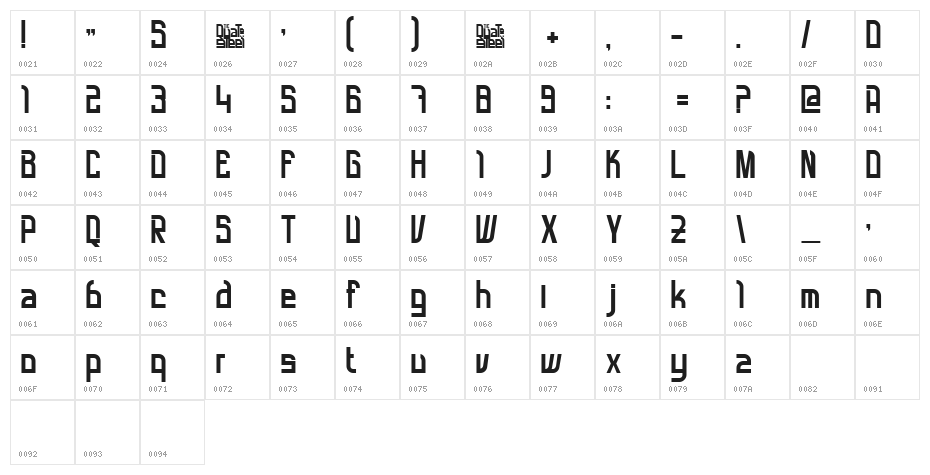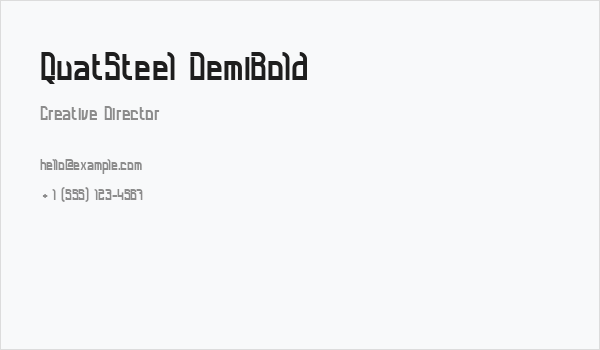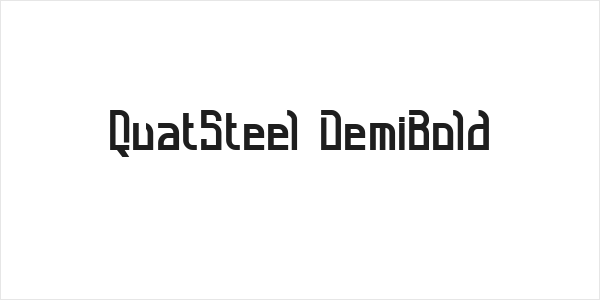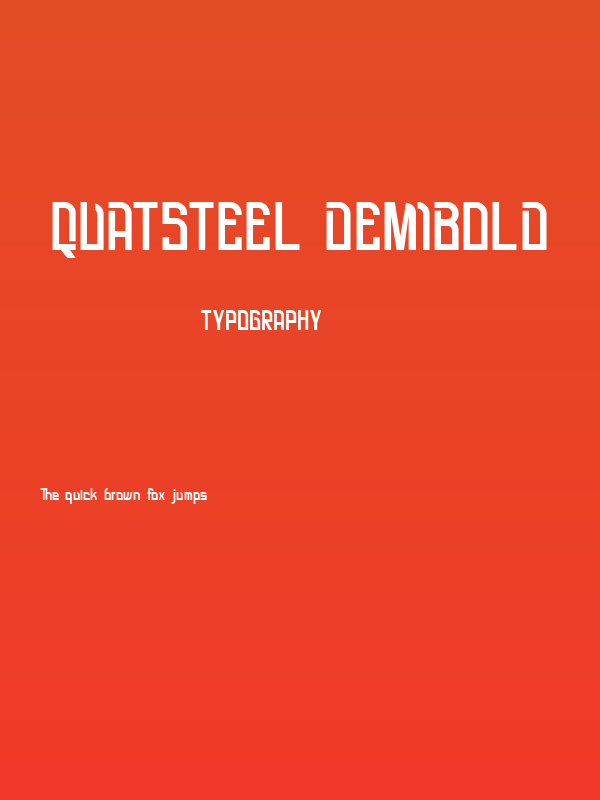
QuatSteel DemiBold Font
QuatSteel DemiBold Description
This font exhibits a bold, geometric style with a modern and industrial feel. The characters are constructed with sharp, angular lines and a consistent stroke width, giving it a robust and sturdy appearance. The uppercase letters are tall and narrow, while the lowercase letters maintain a similar structure, providing a cohesive look across the typeface. The numerals are equally bold and align well with the overall design. Special characters are designed to match the angular and bold characteristics, making this font suitable for impactful and attention-grabbing designs.
Proposed ProjectsIdeal for branding, posters, headlines, and any design requiring a strong, modern aesthetic.